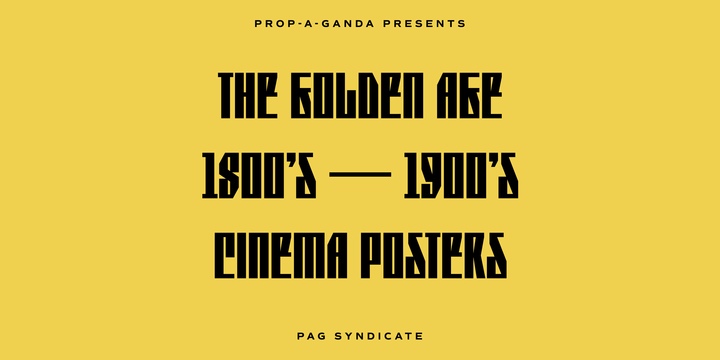
PAG Syndicate Font
This powerful typeface is perfect for crime drama titles, mafia-themed designs, noir movie posters, detective novels, underground branding, prohibition-era graphics, gangster merchandise, vintage speakeasy signage, and dark atmospheric projects.
What makes this font exciting is its criminal underworld aesthetic combined with vintage authority, offering designers a menacing typeface that captures the dangerous allure of organized crime while delivering intimidating presence and authentic prohibition-era sophistication.
The PAG Syndicate font family includes regular, bold, condensed, distressed, and shadow variations, providing complete criminal enterprise design solutions for creating ominous visual identities.
Whether you're developing noir entertainment experiences or crafting underground brand aesthetics, PAG Syndicate Font Free Download brings unmatched criminal sophistication and vintage menace to every application. This intimidating typeface combines 1920s gangster typography with contemporary design precision, creating letterforms that command respect and fear simultaneously. The font's authoritative construction and threatening details make it ideal for brands requiring immediate underworld credibility.
PAG Syndicate Font features carefully engineered criminal styling with authentic prohibition-era character that conveys genuine underground power. Each character has been crafted for maximum psychological impact, with strategic distressing effects and shadow elements that enhance the dangerous aesthetic. The font's criminal atmosphere creates instant associations with power, secrecy, and illicit activities.
Professional designers choose PAG Syndicate Font for projects demanding authentic crime drama credibility and underground atmosphere. Its gangster qualities work exceptionally well for entertainment venues, themed restaurants, and edgy lifestyle brands. The font's versatile criminal variations allow designers to control the menace intensity, from subtle noir elegance to extreme underworld intimidation.
The complete PAG Syndicate Font package offers extensive crime-themed ornaments and decorative elements that enhance the syndicate aesthetic. Advanced layering capabilities allow designers to create complex criminal effects by combining different font styles. This comprehensive underworld toolkit ensures authentic results whether you're creating movie posters, product packaging, or immersive branded experiences.